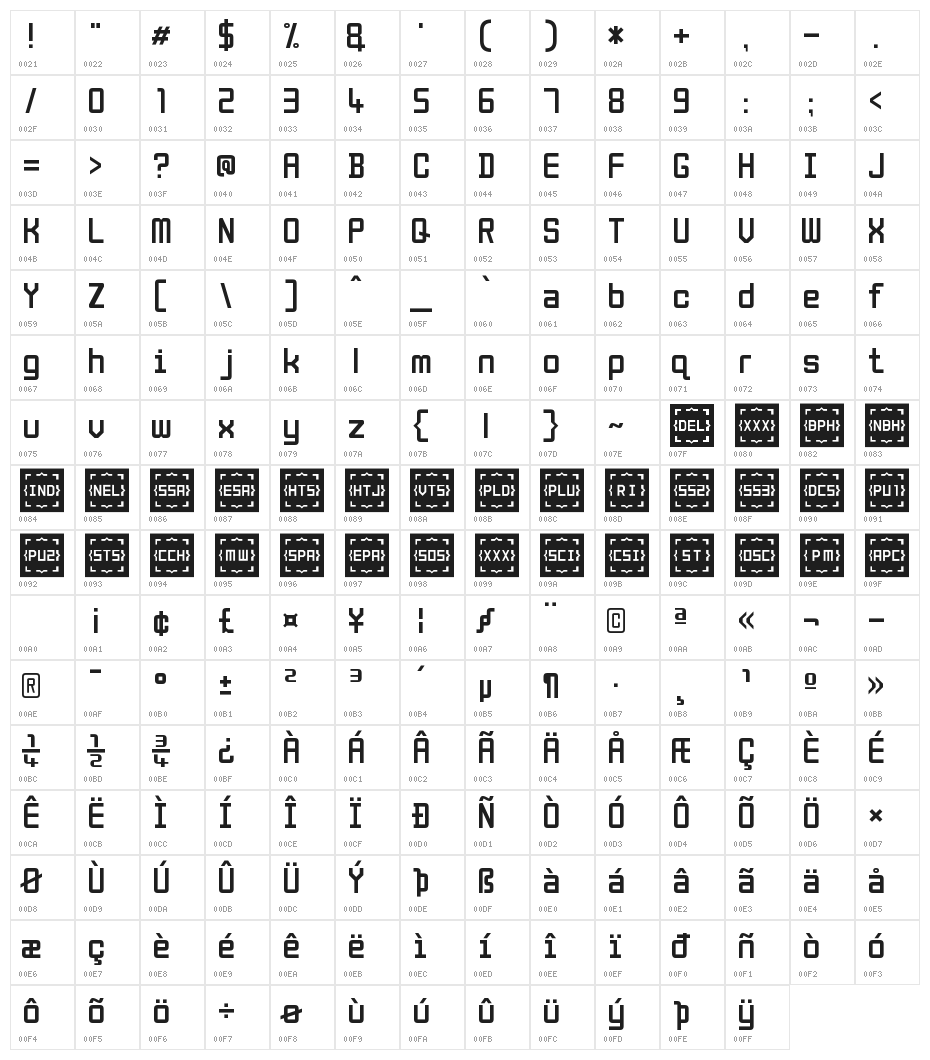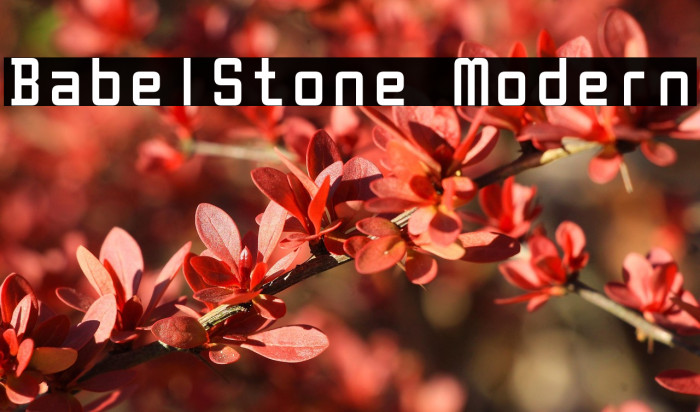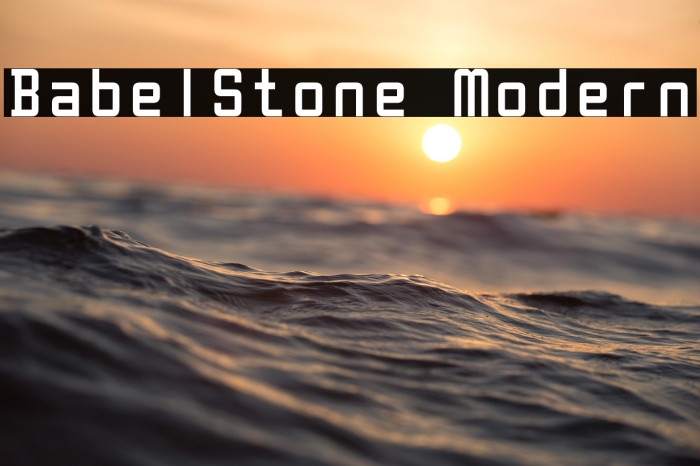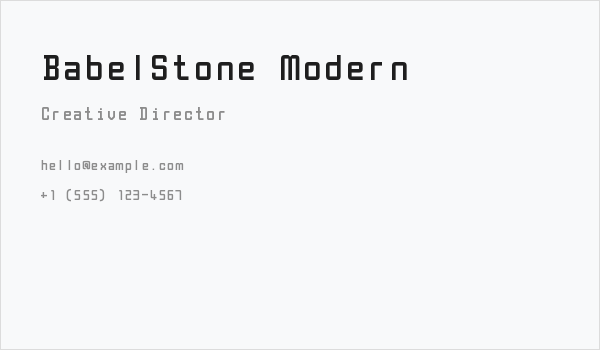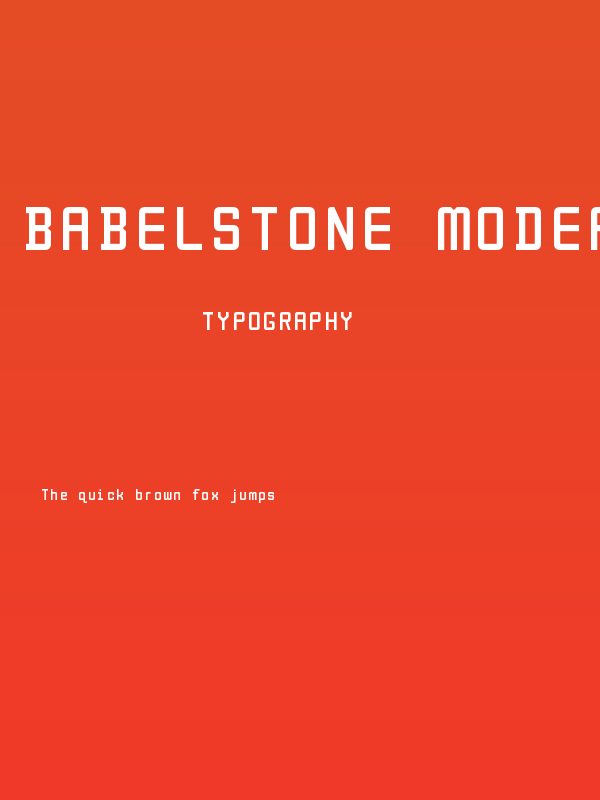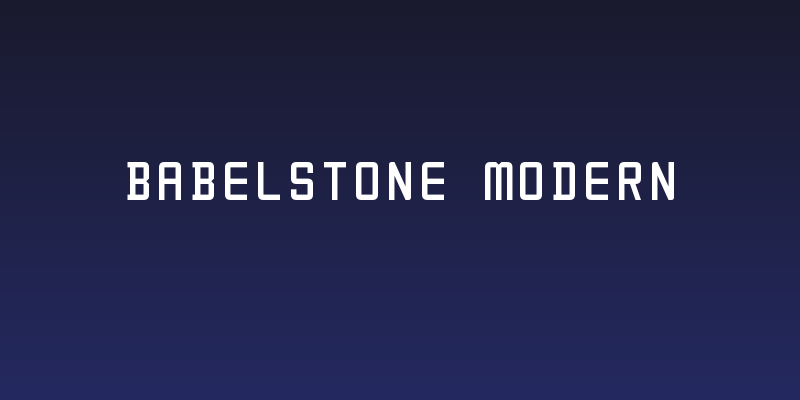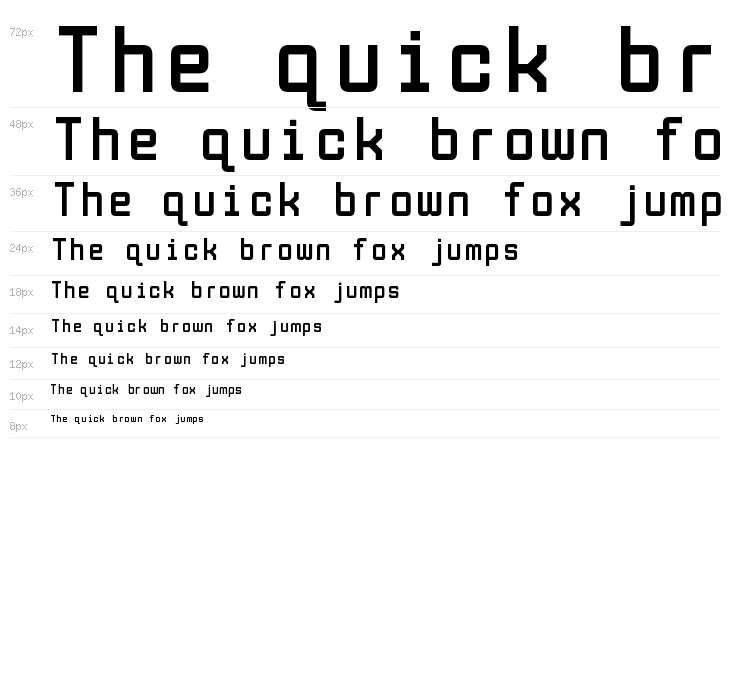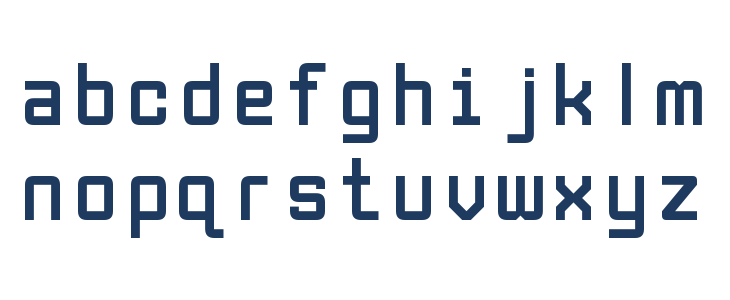
BabelStone Modern Font
BabelStone Modern Description
This font features a modern, geometric design with a monospaced structure. Each character is crafted with precision, showcasing a uniform width that contributes to its clean and organized appearance. The uppercase and lowercase letters maintain a consistent height, while the numerals and special characters are designed to complement the overall style. The font's straight lines and sharp angles give it a contemporary feel, making it suitable for digital and print applications. Its clarity and readability are enhanced by the balanced spacing between characters, ensuring that each letter stands out distinctly. The font's versatility is evident in its ability to adapt to various design contexts, from technical documents to creative projects.
| Use Case | Coding, Technical documents, Digital interfaces |
| Proposed Projects | Ideal for coding environments, technical documentation, digital interfaces, and modern branding projects. |